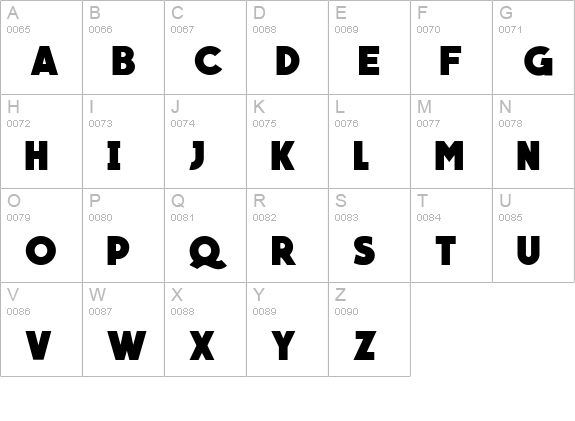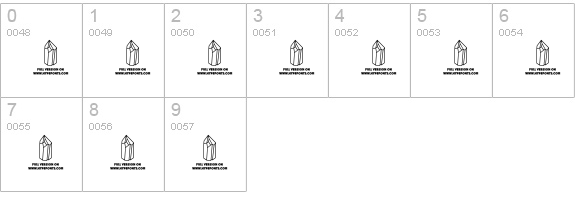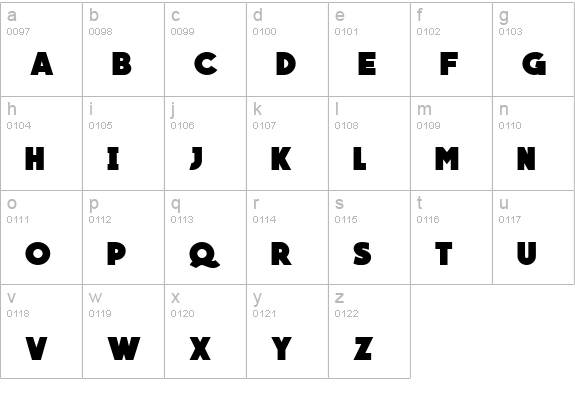
QUARTZO Bold Font Details
QUARTZO Bold is a strong, high-contrast variant in the QUARTZO typeface family \xE2\x80\x94 well suited to headlines, attention-grabbing titles, and strong calls-to-action.
QUARTZO Bold is a striking and captivating font that effortlessly demands attention. With its bold and commanding presence, this font is perfect for creating eye-catching headlines, impactful posters, and memorable logos. The strong and confident letterforms of QUARTZO Bold exude a sense of power and authority, making it an ideal choice for projects that require a bold statement. What sets QUARTZO Bold apart is not only its dynamic design but also its availability for free. Yes, you read that right! QUARTZO Bold is freely available to download at FontsMarket.com, allowing designers and creatives to enhance their projects without any financial burden. This means that QUARTZO Bold can be enjoyed by everyone, regardless of budget constraints, making it a truly inclusive and accessible typeface. Designed with meticulous attention to detail, QUARTZO Bold maintains legibility even at smaller sizes, ensuring that your message remains clear and impactful. Its clean and modern aesthetic adds a touch of sophistication to any design, while its versatility allows it to seamlessly adapt to various styles and themes. Whether it's for a bold headline, a sleek magazine layout, or a stylish branding project, QUARTZO Bold is the perfect choice to make a lasting impression. So why wait? Download QUARTZO Bold for free at FontsMarket.com and unleash its power in your creative endeavors. With this exceptional font at your fingertips, you have the freedom to express your ideas and leave a lasting impact on your audience. Embrace the boldness of QUARTZO Bold and elevate your designs to new heights.